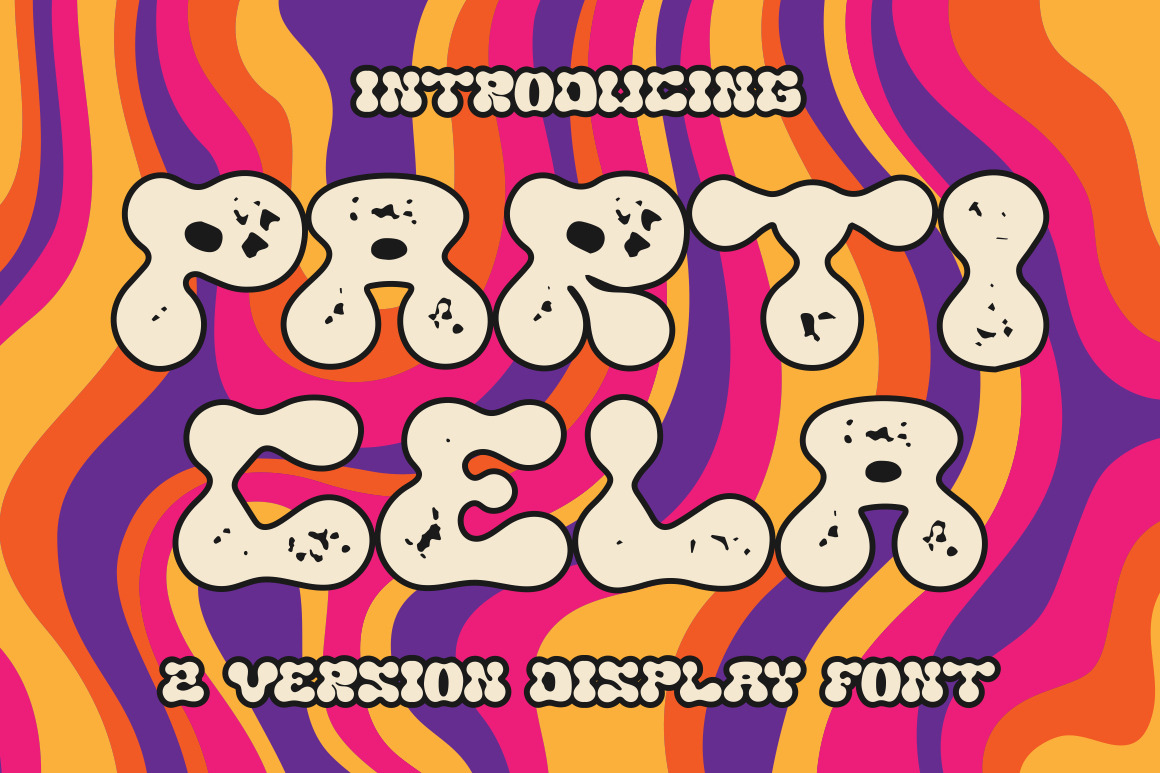
Particela - Display Font
Particela - Display Font. Particela is a display style font. The classic, fun and groovy impression is very visible. But in Particela I combine several variations such as the ligature. Particela is inspired by vintage albums and posters from 1960s music bands. It makes this font even more unique and different. Particela is also great for any kind of display purpose from album, cover,poster, label, tshirt, apparel, signage, quote, logo, greeting card,logotype and many more. Particela is also support multi language.